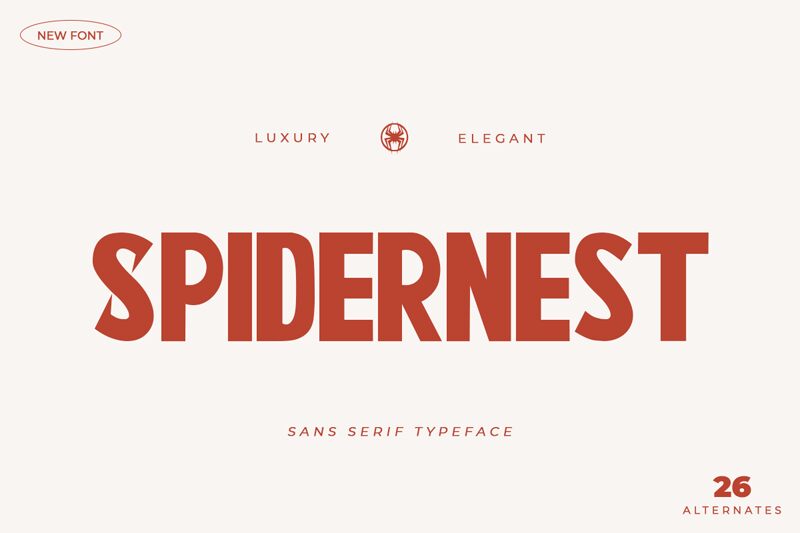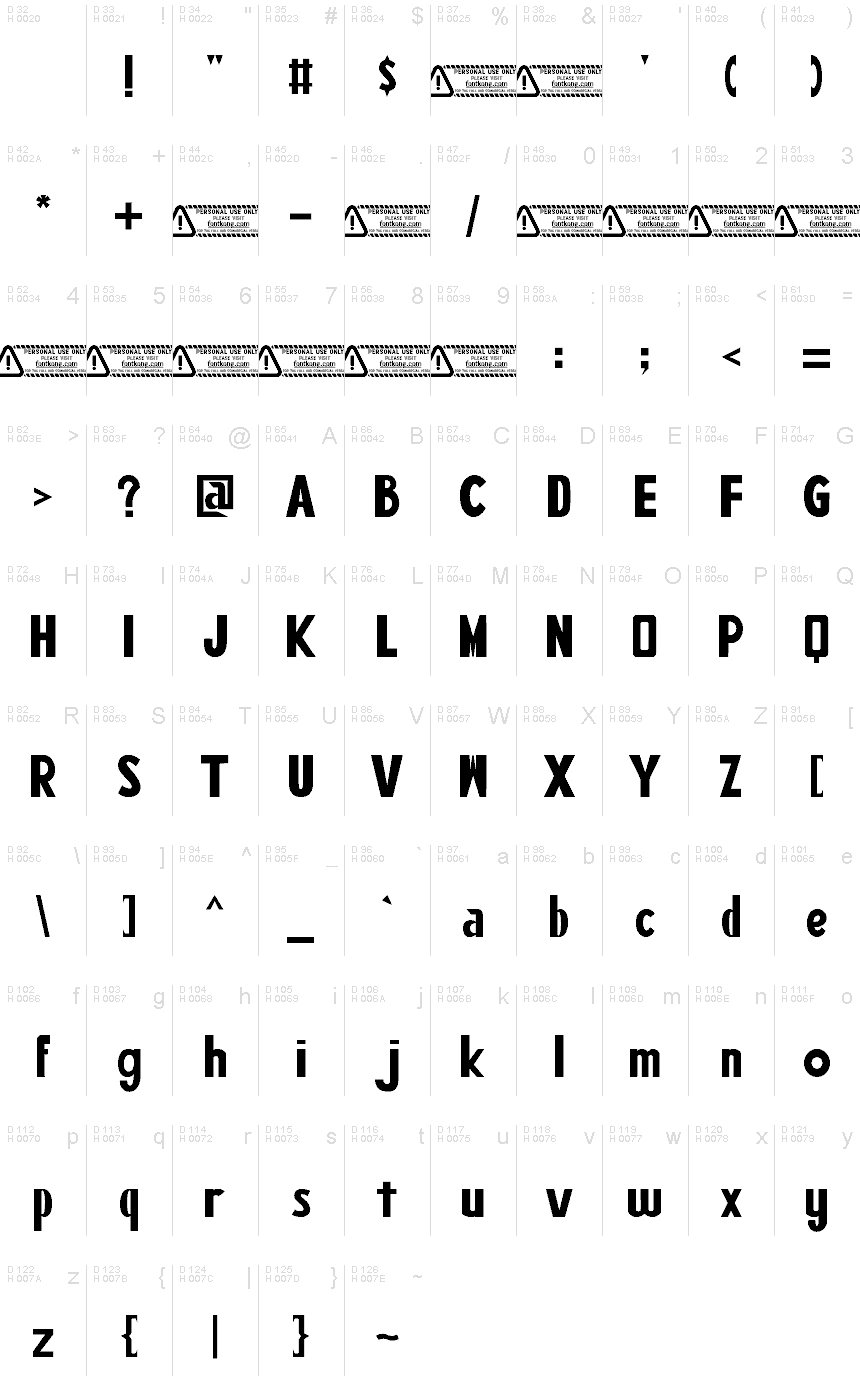
SPIDER NEST
Spider Nest font by Kong Font is a bold and playful display font with a cartoonish style. Although its letters seem strong in appearance, the presence they form when put together is nothing short of entertaining. The face’s characters have a compressed geometric design that gives them a slightly modern feel despite their more professional or formal tone.